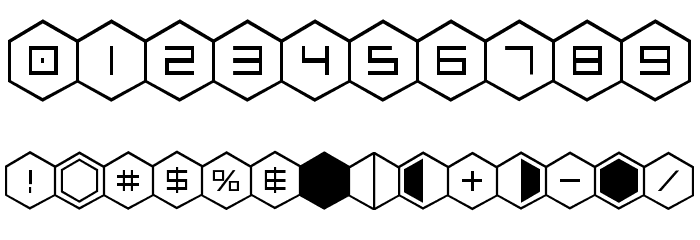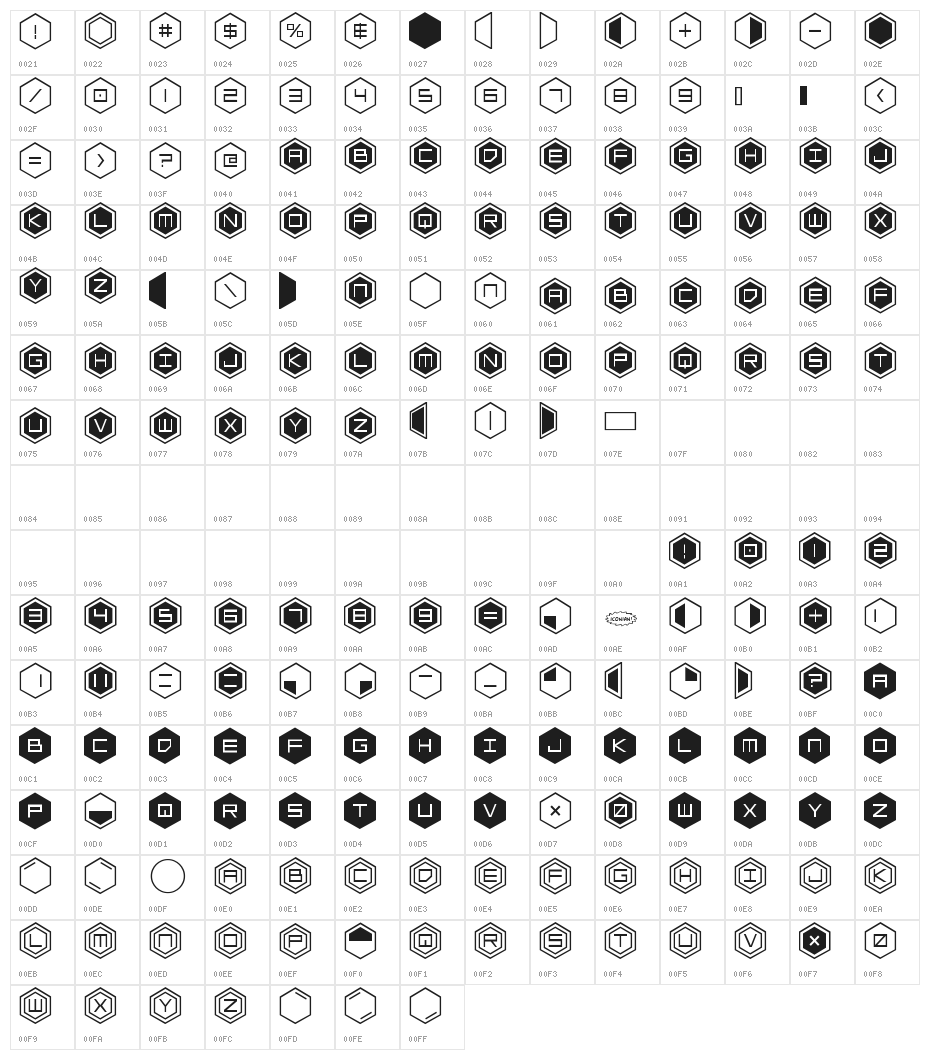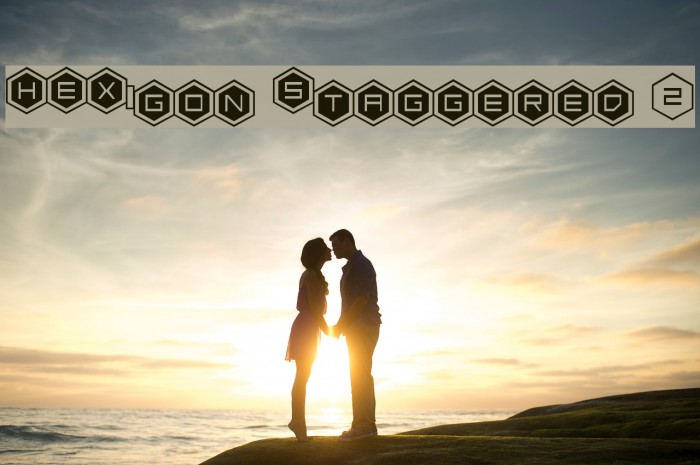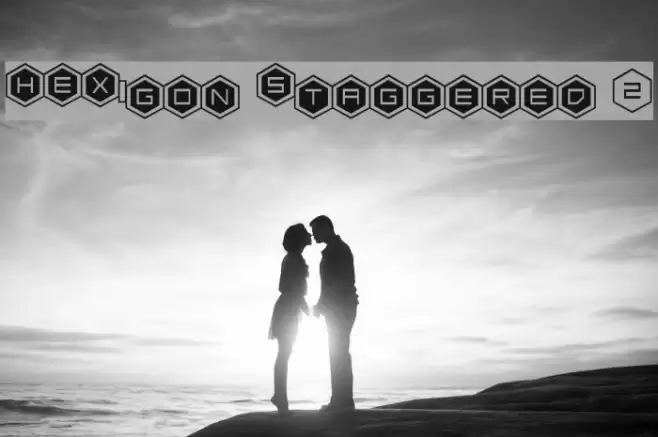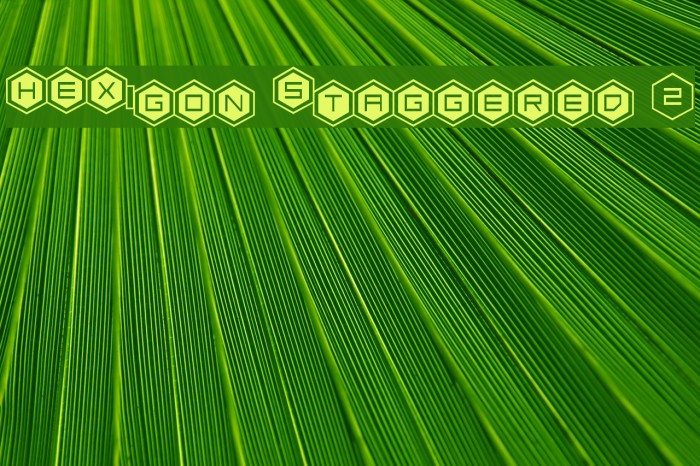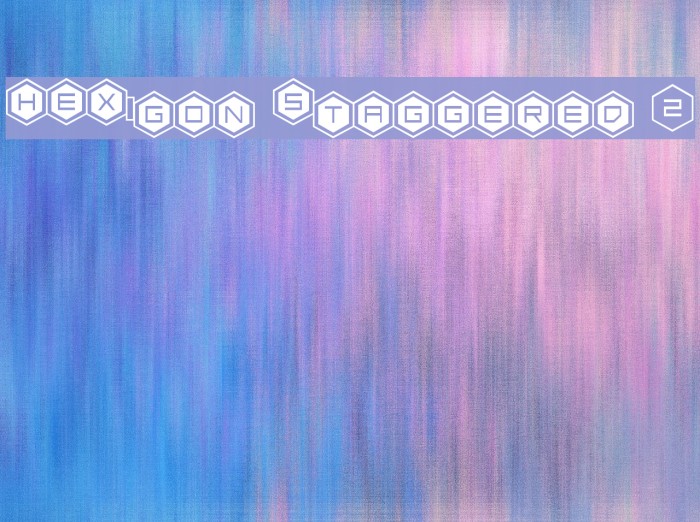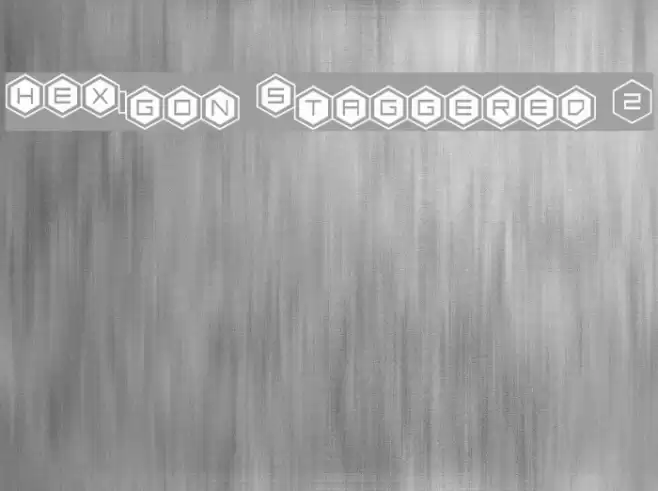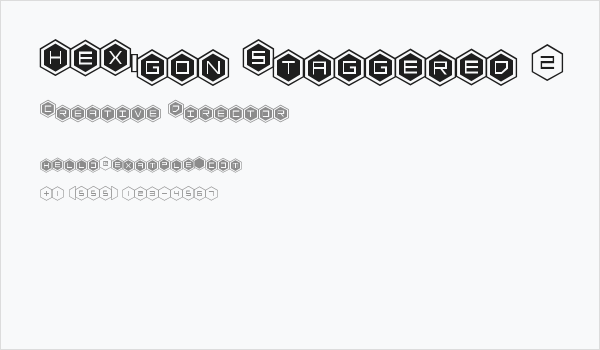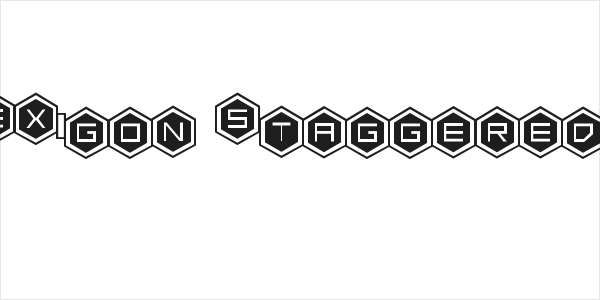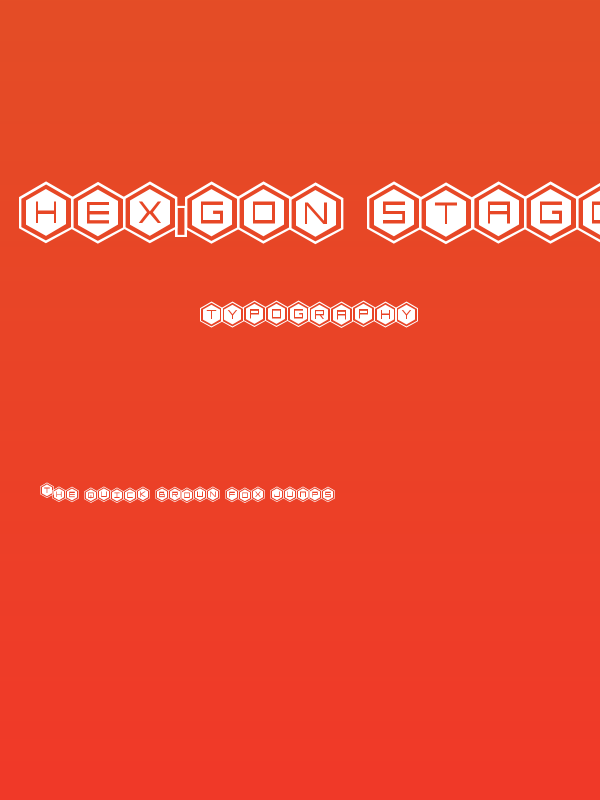
HEX:gon Staggered 2 Font
HEX:gon Staggered 2 Description
This font features a unique design where each character is enclosed within a hexagonal shape, creating a bold and geometric appearance. The letters are uppercase and lowercase, along with numbers and special characters, all maintaining the hexagonal theme. The characters are outlined, with a consistent stroke width that adds to the uniformity and modern aesthetic. The overall style is highly decorative, making it suitable for eye-catching designs. The hexagonal enclosures provide a sense of structure and order, while the boldness of the characters ensures readability.
| Use Case | Logos, Posters, Branding |
| Proposed Projects | Ideal for logos, posters, and branding materials that require a modern and structured look. |